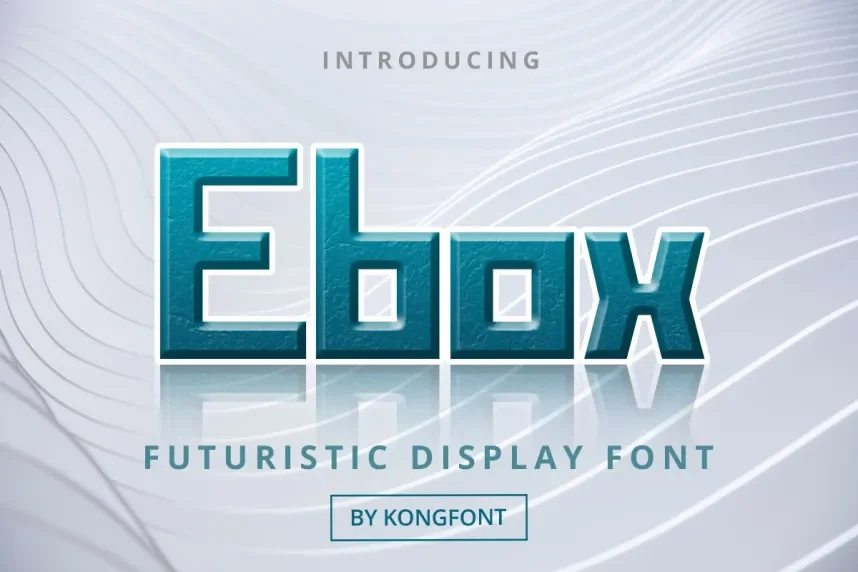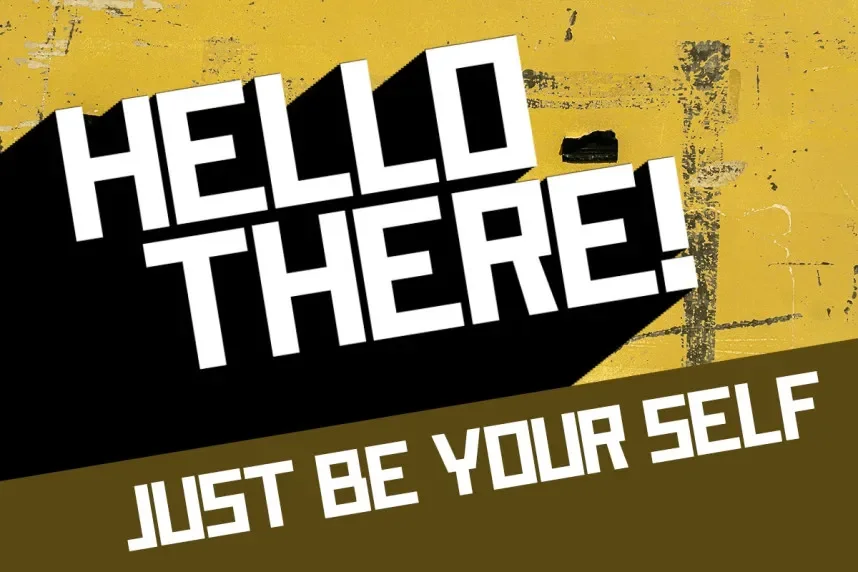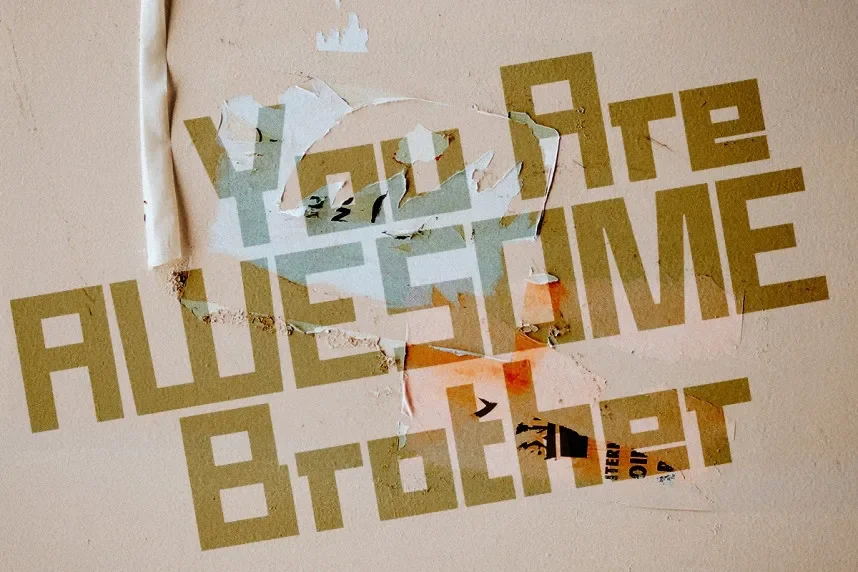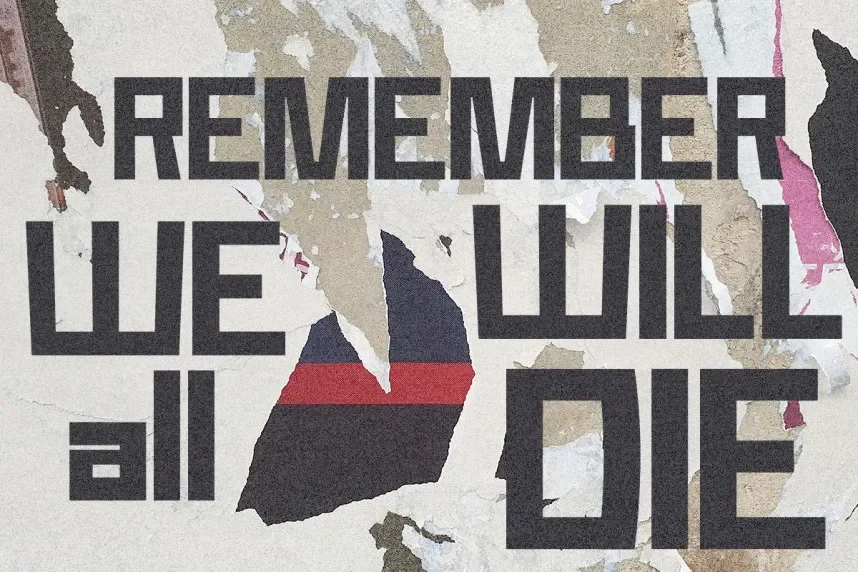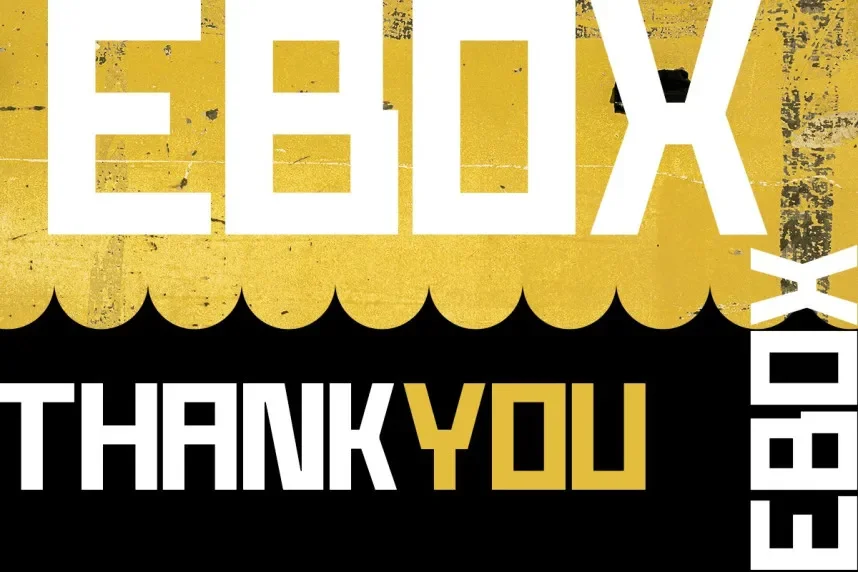
Ebox Font is a modern sans-serif typeface designed to improve legibility and maintain brand consistency across web, print, and UI design projects. Its clean lines and geometric structure support professional layouts.
The font features uniform strokes, open counters, and balanced spacing. Stylistic alternates provide flexibility for creative typographic compositions, ensuring readability at various sizes. Its minimal design works well for contemporary branding and editorial content.